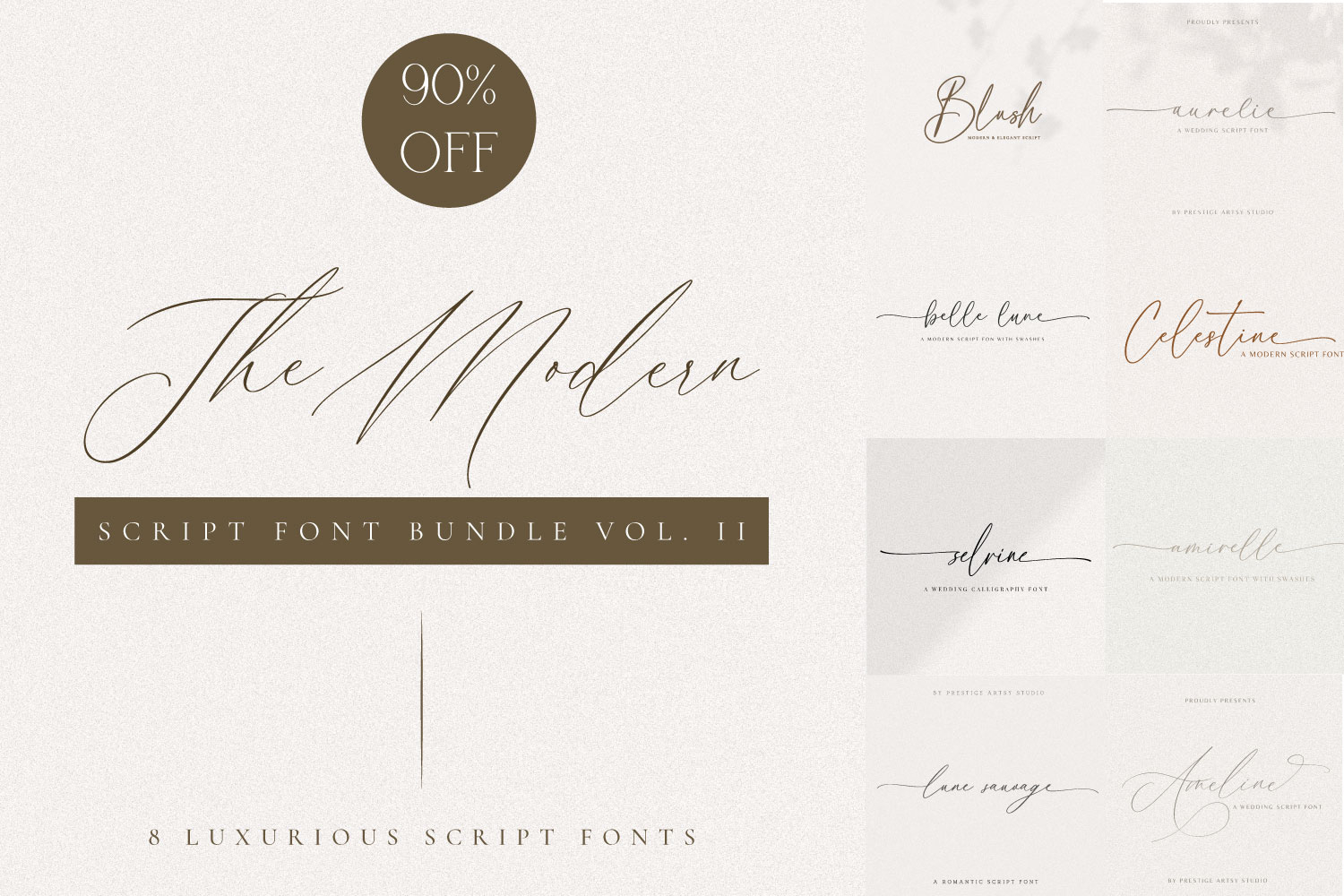
The Modern Script Font Bundle Vol. II
Elevate your designs with this premium Script Font Bundle – Volume 2, a carefully curated collection of elegant, beautiful, and feminine script fonts perfect for branding, weddings, logos, invitations, social media, and modern creative projects.
This bundle features multiple high-quality script typefaces with flowing strokes and refined curves, designed to add instant luxury and personality to your work.
• Ameline Script
• Amirelle Script
• Aurelie Script
• Belle Lune Script
• Blush Script
• Celestine Script
• Lune Sauvage Script
• Selvine Script
✔ Elegant & modern script styles
✔ Perfect for wedding design, logos, branding, quotes & packaging
✔ Smooth curves & professional typography
• Wedding invitations & stationery
• Luxury logos & branding
• Branding
• Social media graphics
• Quotes, apparel & product packaging
• Feminine & romantic design projects